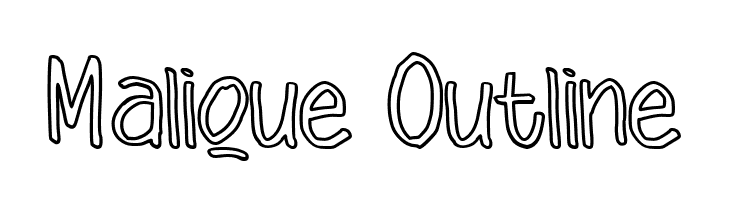
( Fonts by 38.lineart )
A playful, hand-drawn outline font with a whimsical and informal style.
( Fonts by Nico Muslib )
A playful, rounded font with smooth curves and a friendly appearance.
( Fonts by flyer7 )
A playful, rounded font with smooth curves and a friendly appearance.
( Fonts by Press Gang Studios - Andeh Pinkard - www.pressgang-studios.com )
A playful, comic-style font with a handwritten feel.
( Fonts by Press Gang Studios - Andeh Pinkard - www.pressgang-studios.com )
A bold, playful font with a comic book style and hand-drawn appearance.
( Fonts by Sensatype Studio )
A bold, rounded font with a playful and energetic style.
( Fonts by Haris Prawoto )
A bold, playful font with rounded, handwritten-style letters.